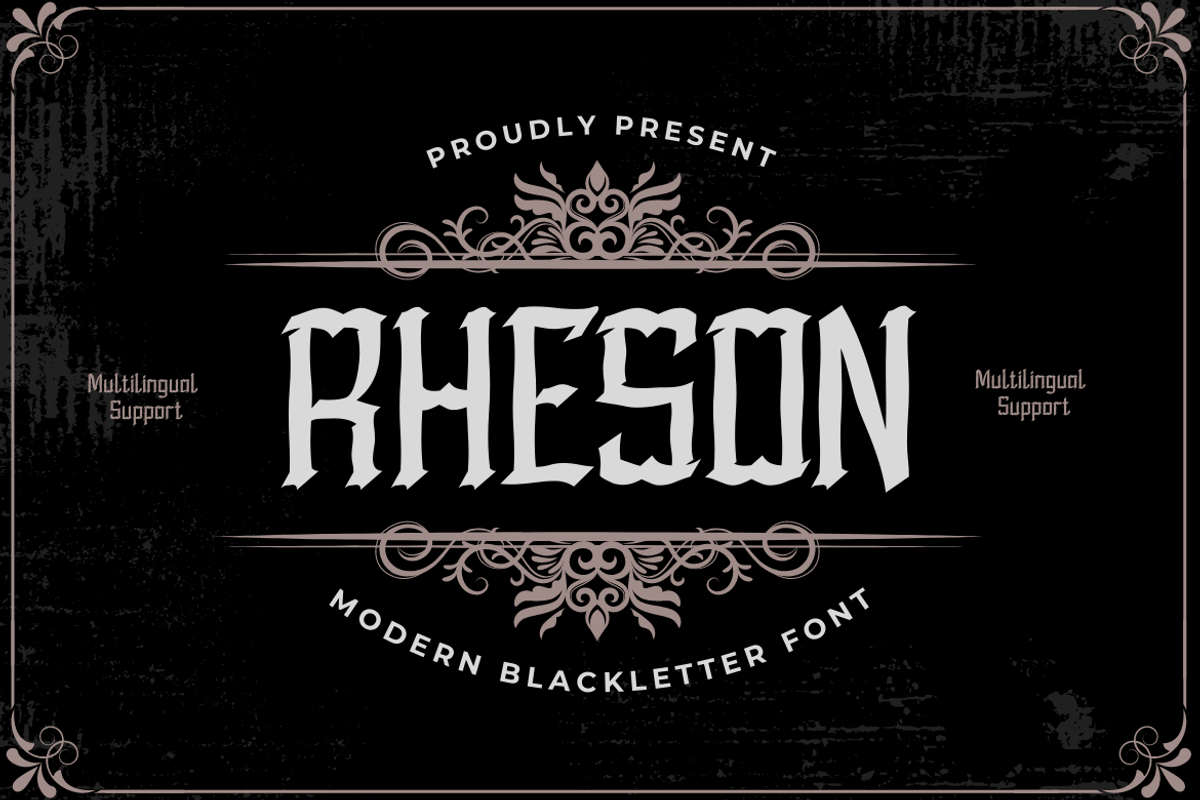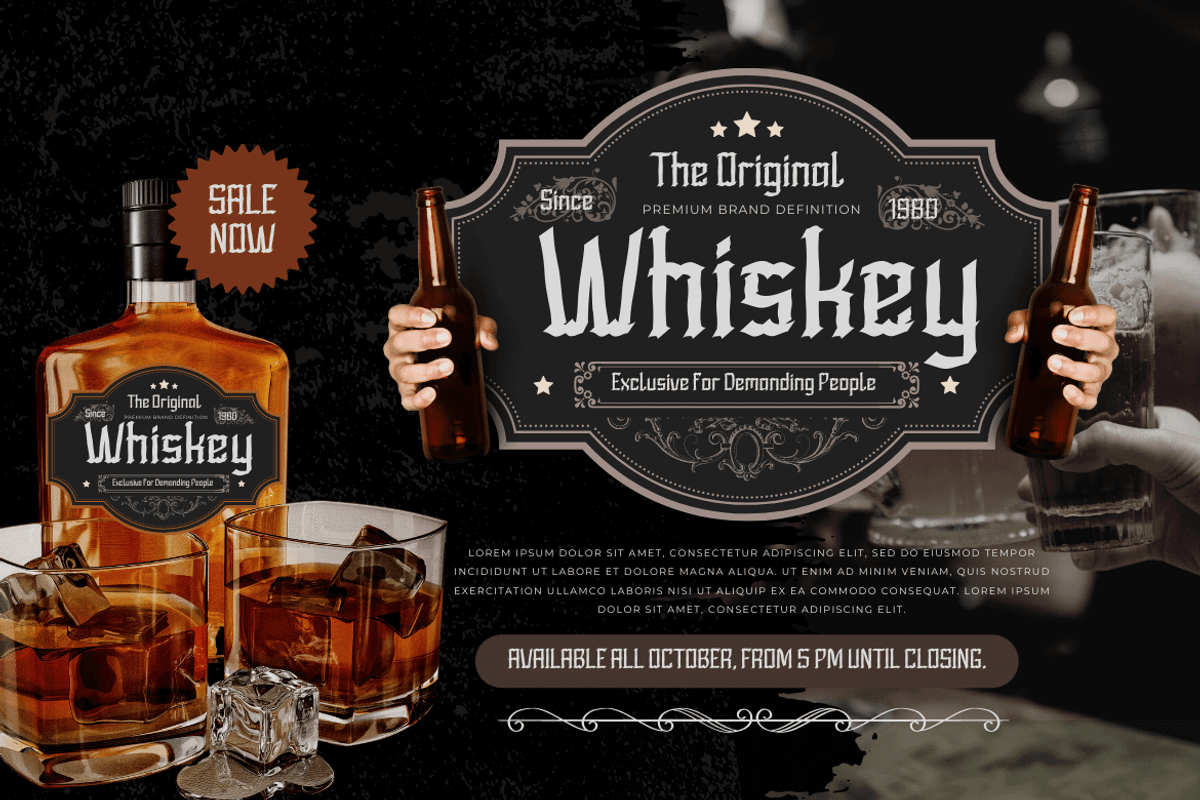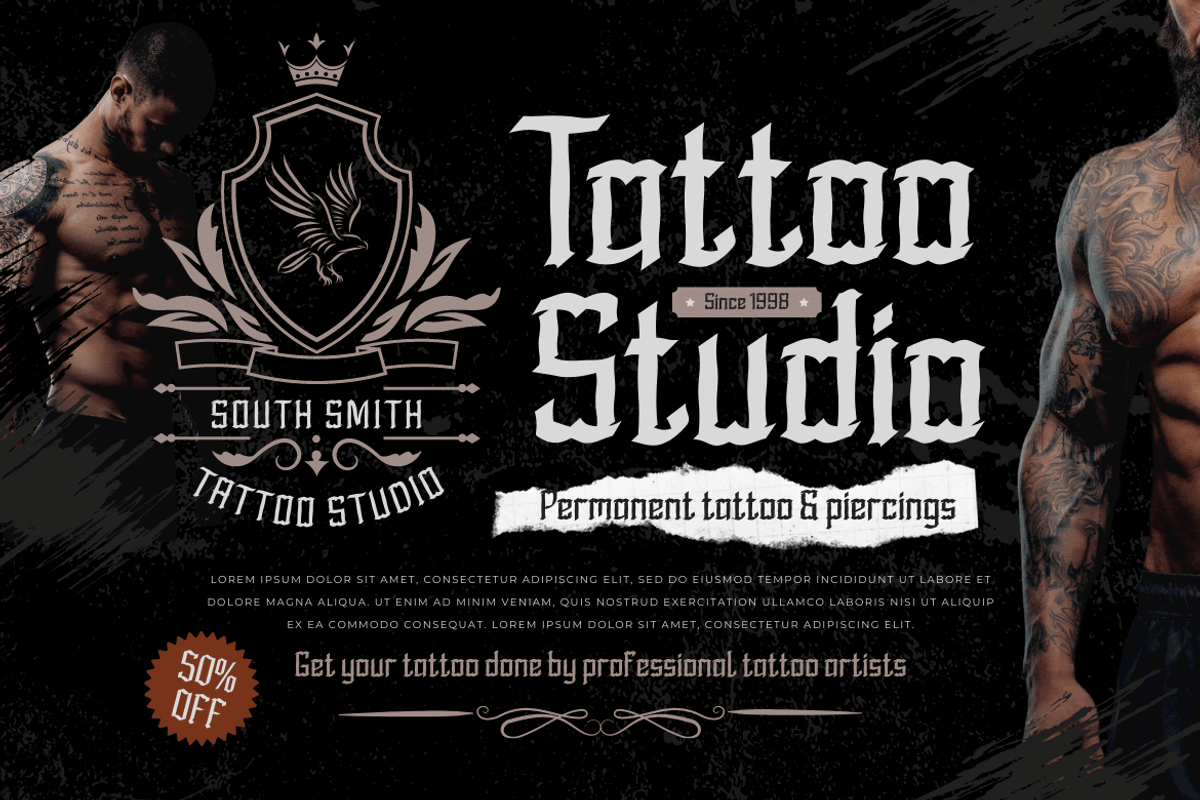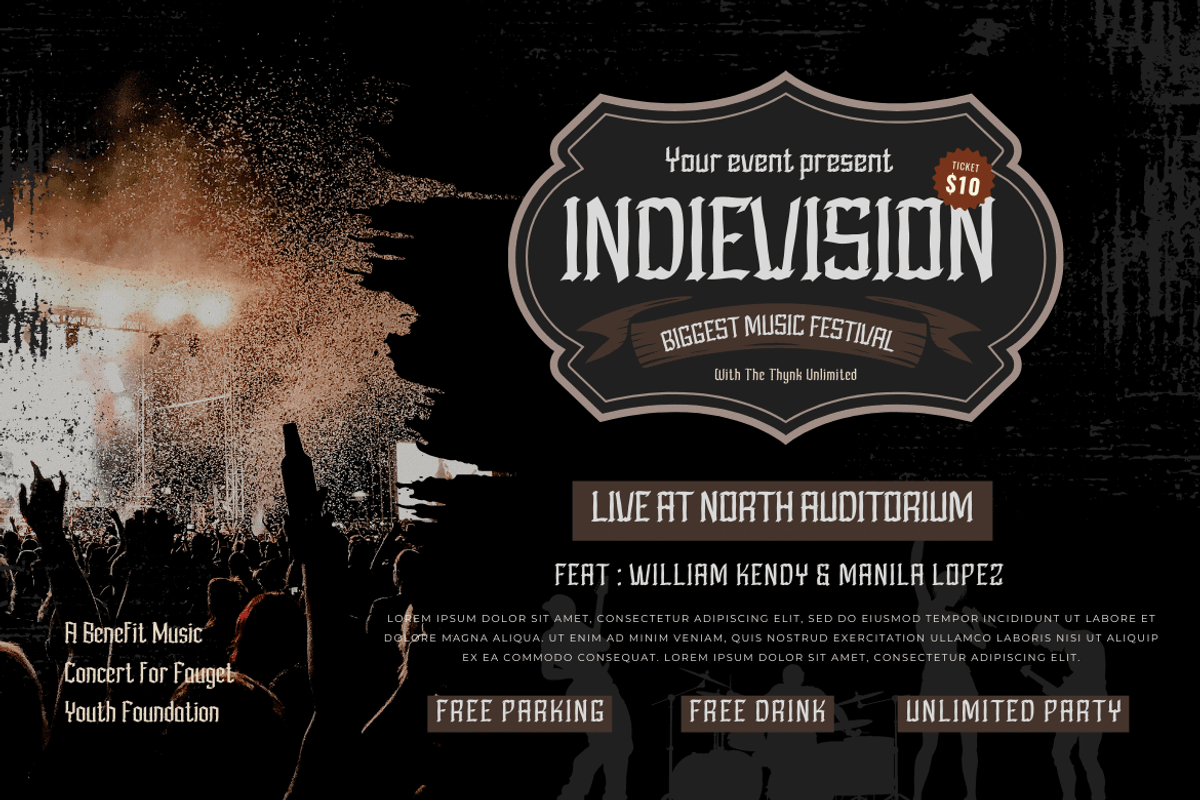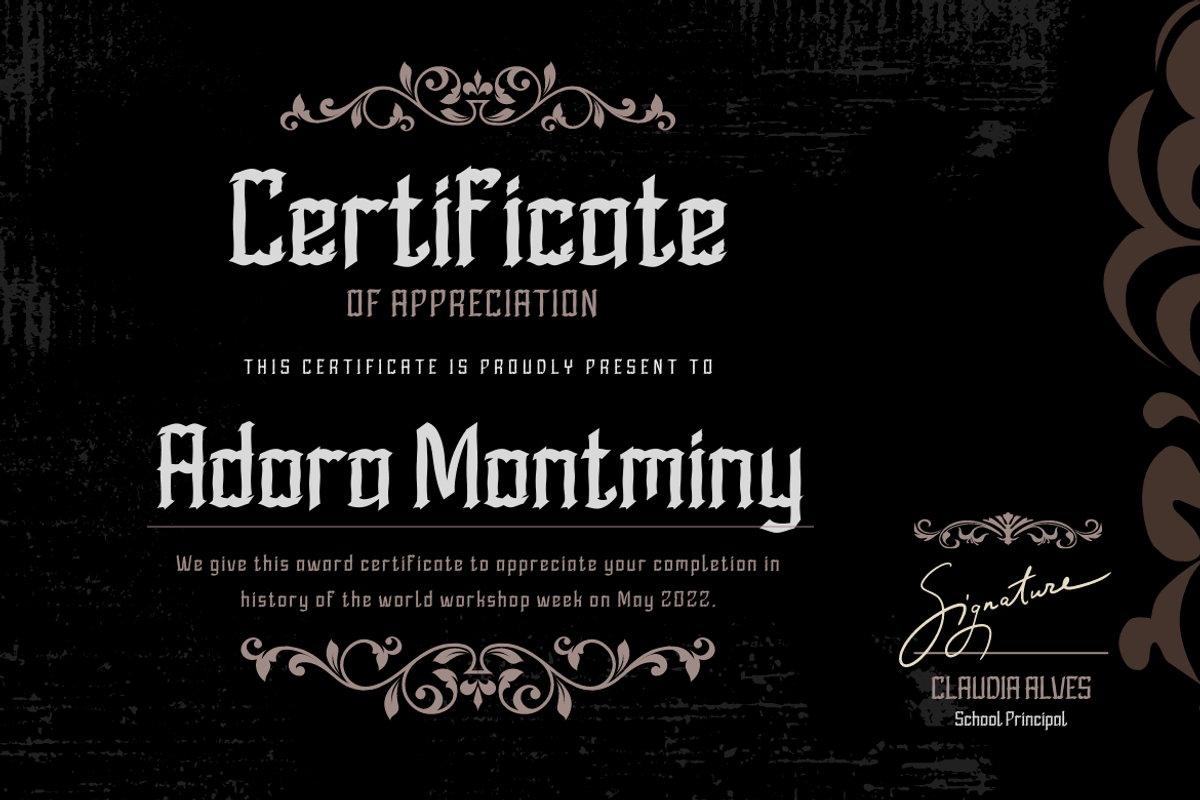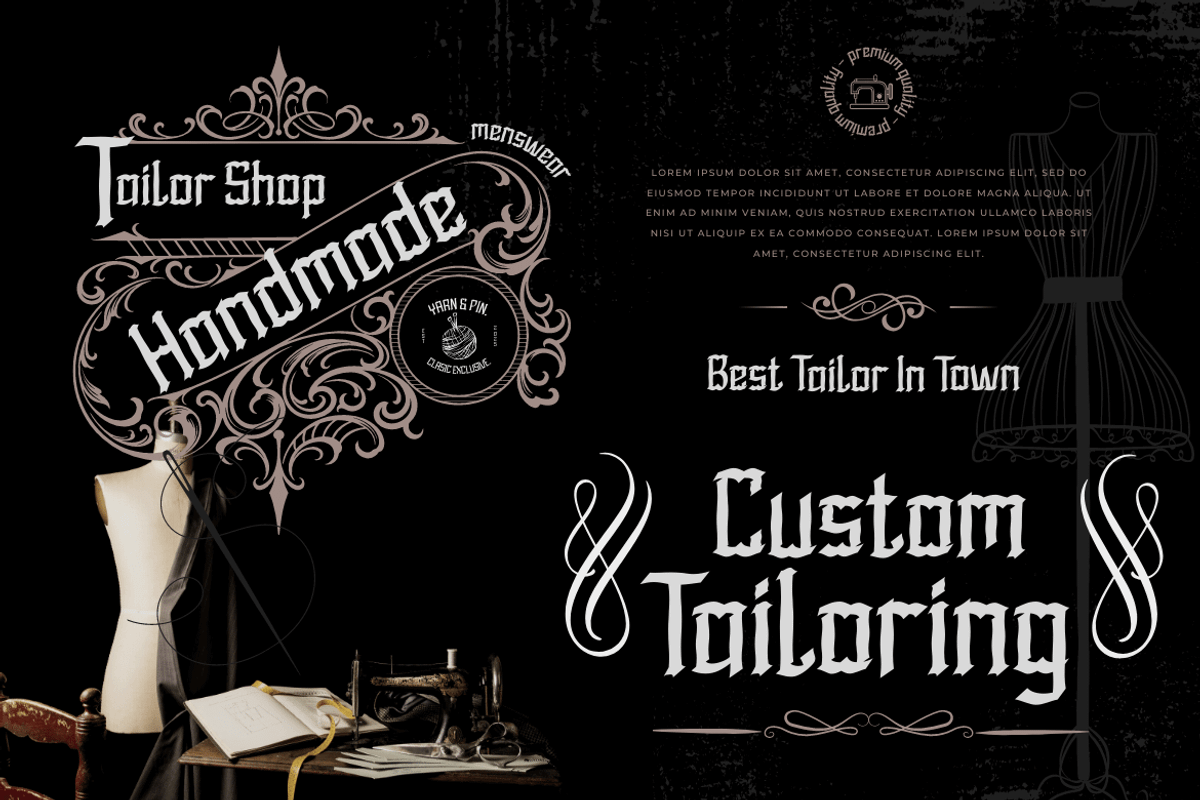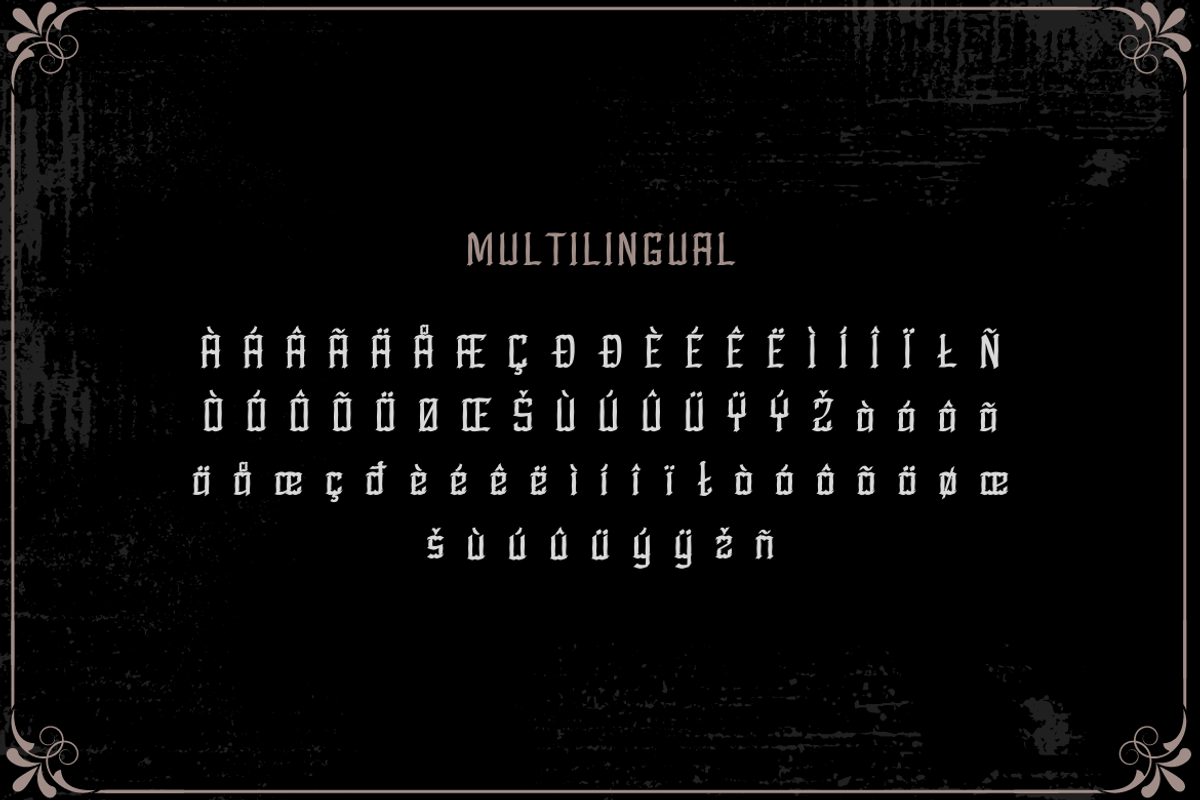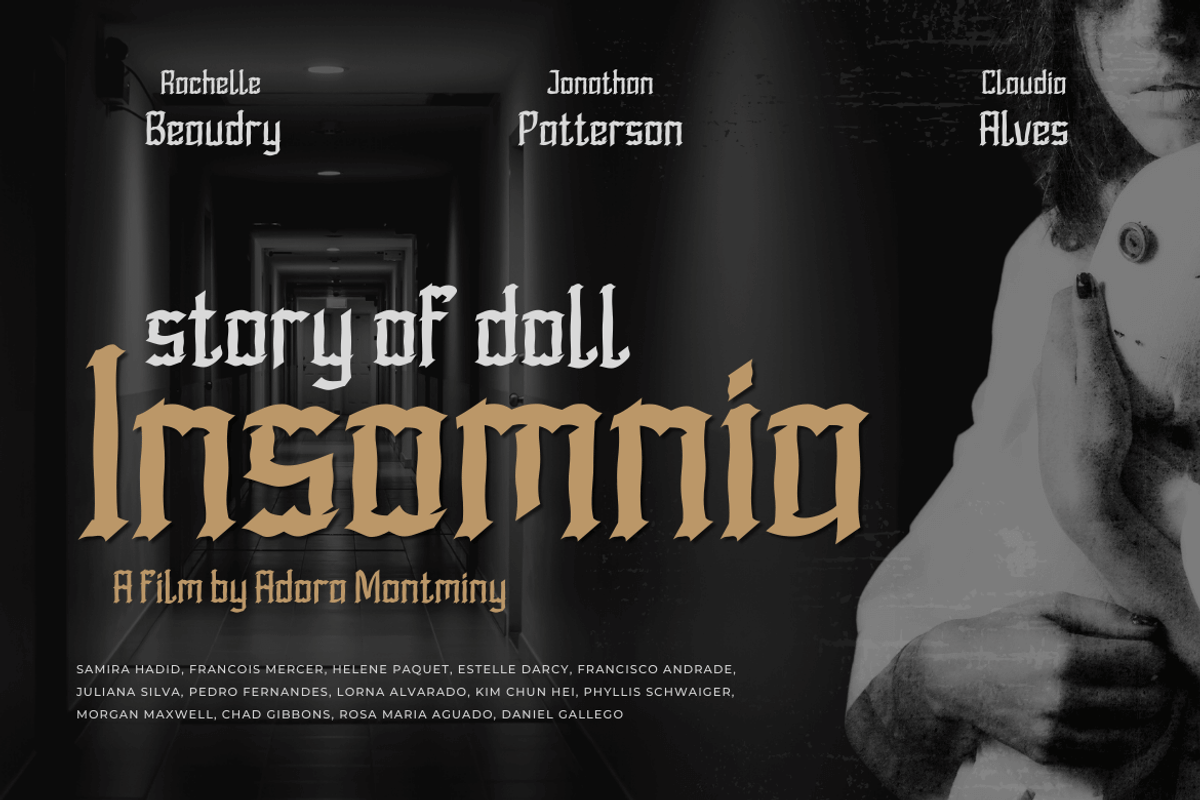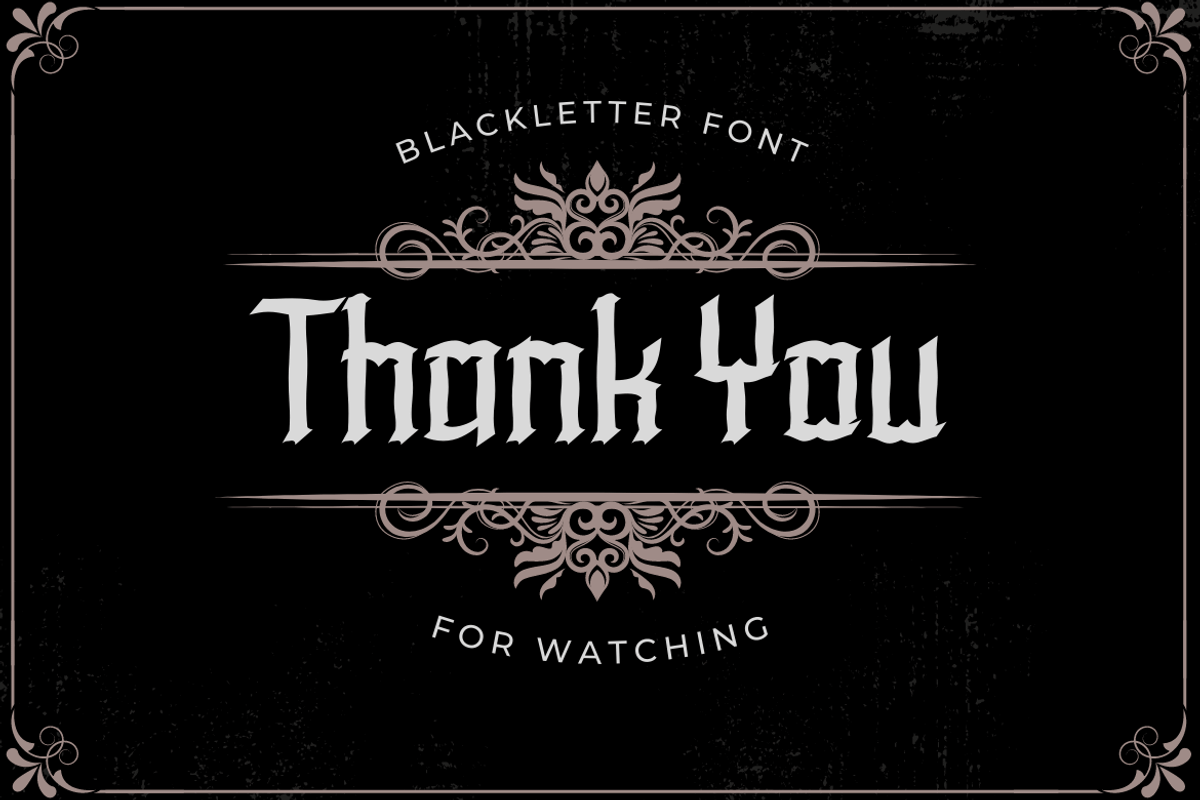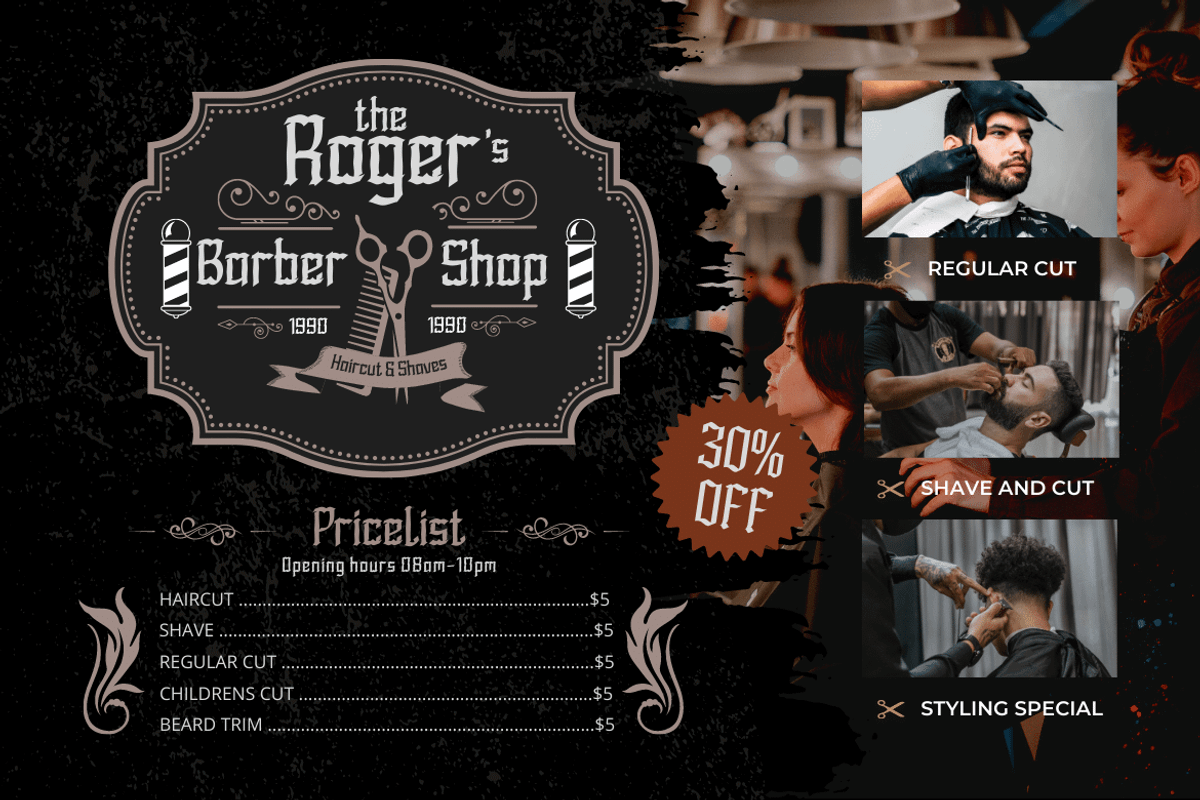
RHESON Blackletter font
RHESON is the ideal font for any project that requires a small amount of gothic flair. Its various lovely and harmonious shapes let you select the perfect word for your project. The best part is that this font is of a high caliber, so you can be sure that your logo, label, badge, the newest music or movie videos, old-fashioned posters, and other items will all look their best.